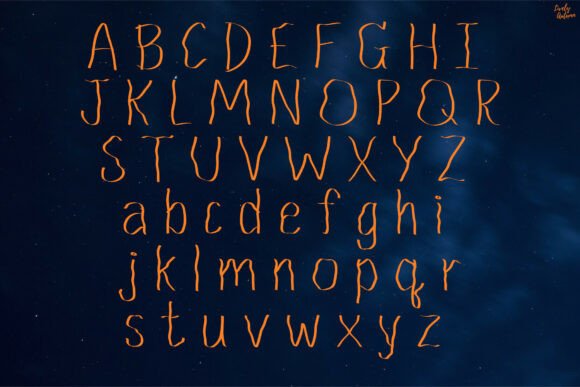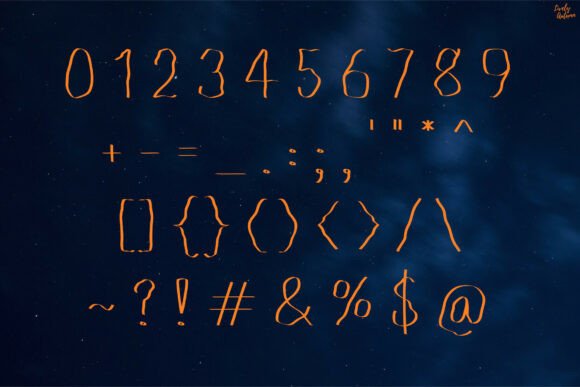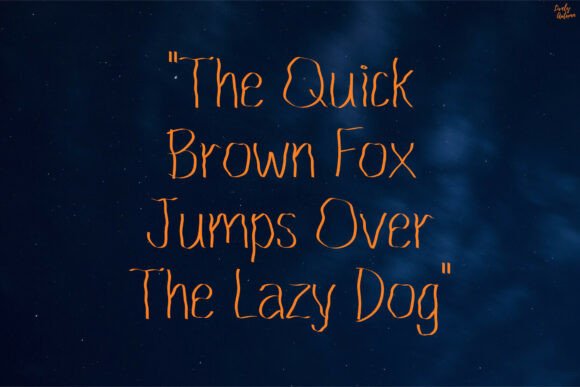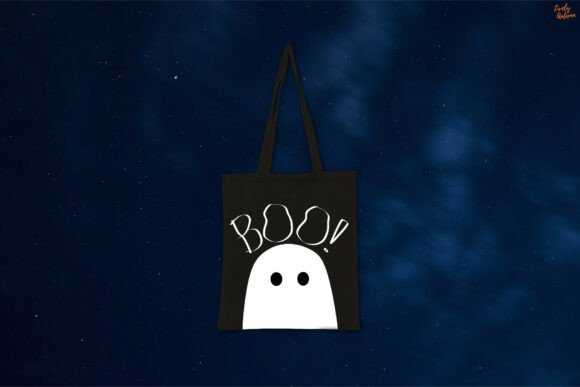
Introducing Ghost Ink Font: The Shaky Handwritten Font for Creative Projects
Are you a designer, crafter, or DIY enthusiast looking for a unique and eye-catching font to elevate your projects? Look no further than Ghost Ink Font, a shaky handwritten font that’s perfect for adding a personal touch to your creations. In this article, we’ll explore the features and benefits of Ghost Ink Font, and show you how to use it to take your projects to the next level.
What is Ghost Ink Font?
Ghost Ink Font is a shaky handwritten font that’s designed to give your projects a personal and imperfect touch. With its unique, wobbly lines and irregular letterforms, this font is perfect for creating a sense of whimsy and charm. Whether you’re working on a personal project or a commercial one, Ghost Ink Font is sure to add a touch of personality and style.
Features of Ghost Ink Font
- Shaky Handwritten Style: Ghost Ink Font features a shaky, handwritten style that’s perfect for creating a sense of imperfection and charm.
- Unique Letterforms: Each letterform in Ghost Ink Font is unique and irregular, adding to the font’s whimsical and playful feel.
- Perfect for Personal Projects: Ghost Ink Font is perfect for personal projects, such as invitations, journals, and social media graphics.
- Versatile: This font is versatile and can be used for a wide range of projects, from posters and flyers to stickers and crafts.
Uses for Ghost Ink Font
Ghost Ink Font is perfect for a wide range of projects, including:
- Invitations: Add a personal touch to your invitations with Ghost Ink Font, perfect for weddings, birthday parties, and other special occasions.
- Posters and Flyers: Use Ghost Ink Font to create eye-catching posters and flyers for events, promotions, and products.
- Social Media Graphics: Add a touch of personality to your social media graphics with Ghost Ink Font, perfect for creating engaging and shareable content.
- Journals and Planners: Use Ghost Ink Font to create unique and inspiring journals and planners that will help you stay organized and motivated.
- Stickers and Crafts: Ghost Ink Font is perfect for creating custom stickers and crafts, such as handmade cards, gift tags, and decorations.
Tips for Using Ghost Ink Font
Here are a few tips for using Ghost Ink Font in your projects:
- Experiment with Colors: Ghost Ink Font looks great in a variety of colors, so don’t be afraid to experiment and find the perfect hue for your project.
- Mix and Match Fonts: Combine Ghost Ink Font with other fonts to create a unique and interesting look.
- Use it Sparingly: Ghost Ink Font is a statement font, so use it sparingly to add emphasis and interest to your project.
| Font Name | Ghost Ink Font |
| Author | LivelyAutumn 11.11 |
Ghost Ink Font is a unique and versatile shaky handwritten font that’s perfect for adding a personal touch to your projects. With its irregular letterforms and whimsical feel, this font is sure to add a touch of charm and personality to your creations. Whether you’re a designer, crafter, or DIY enthusiast, Ghost Ink Font is a must-have font for your collection.